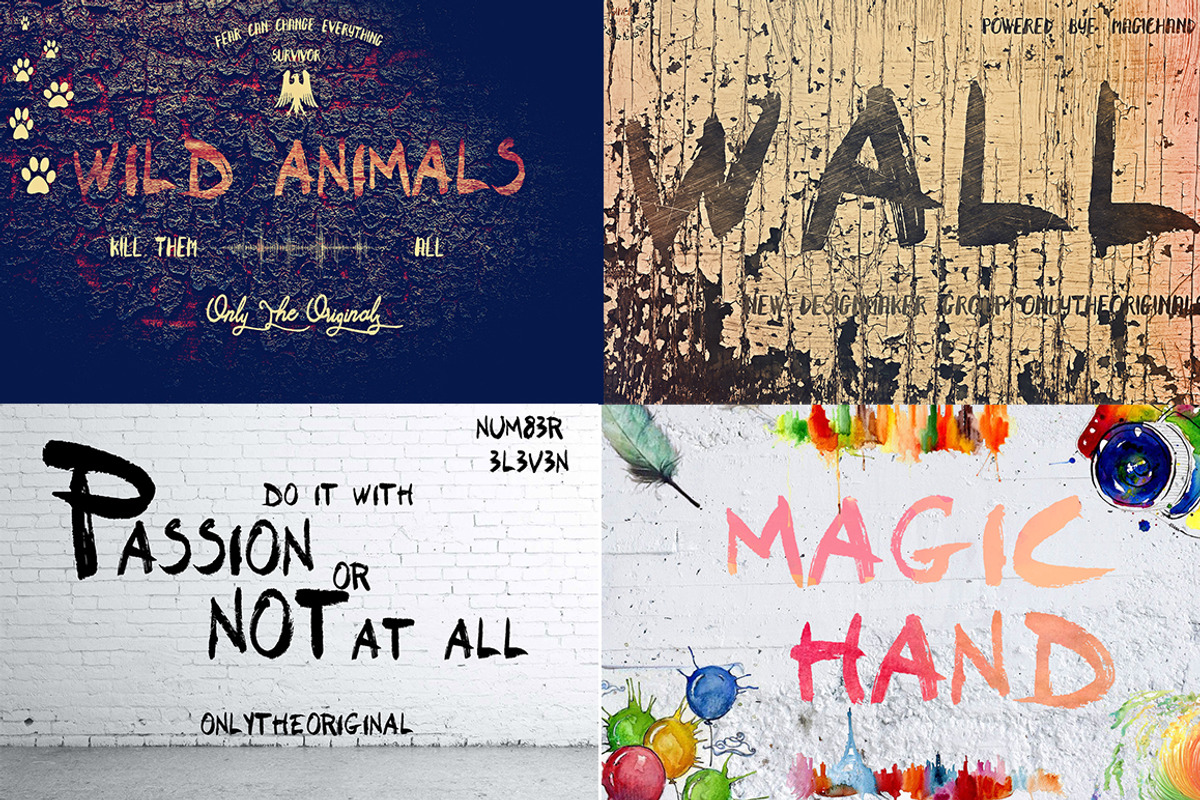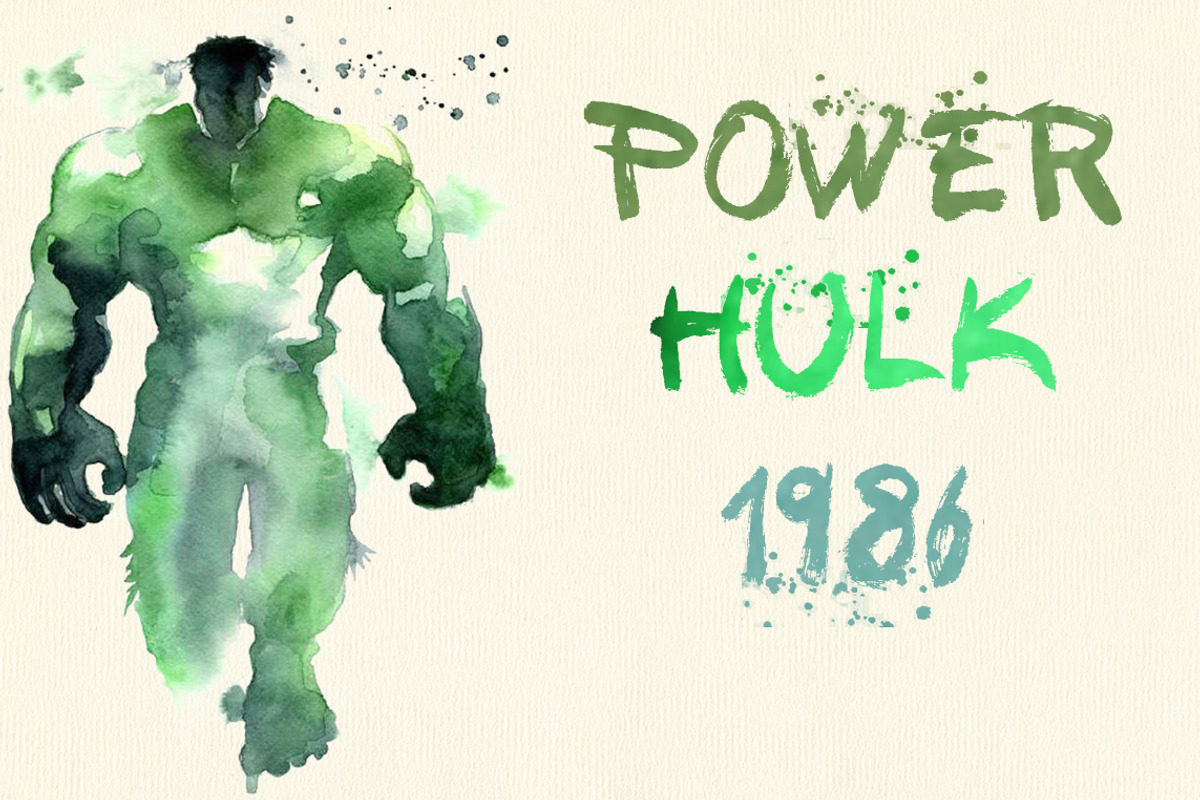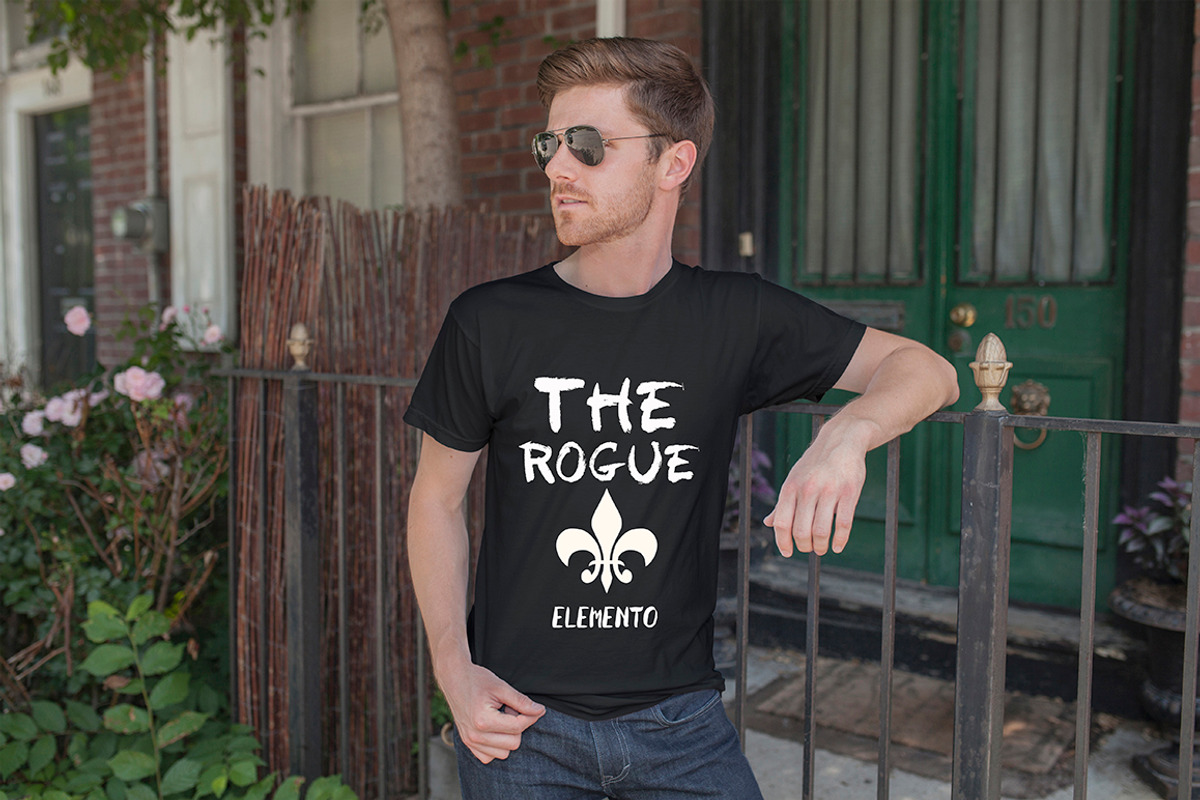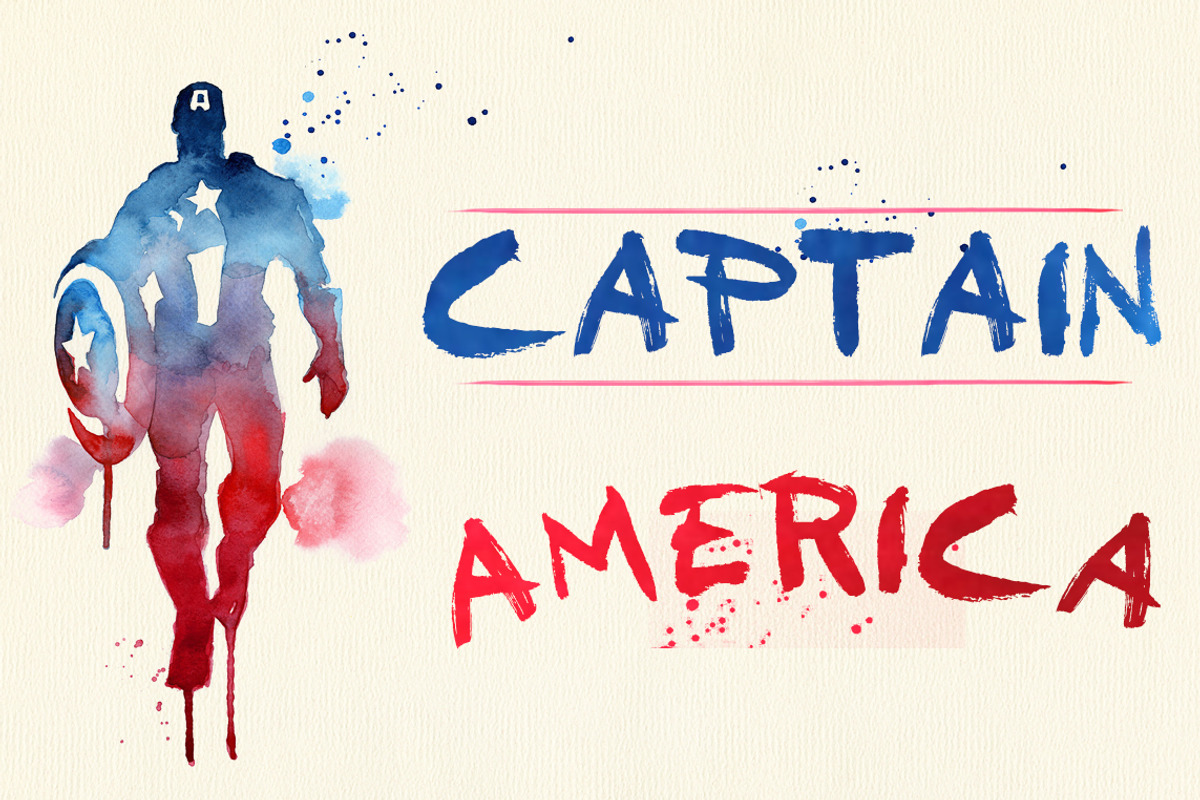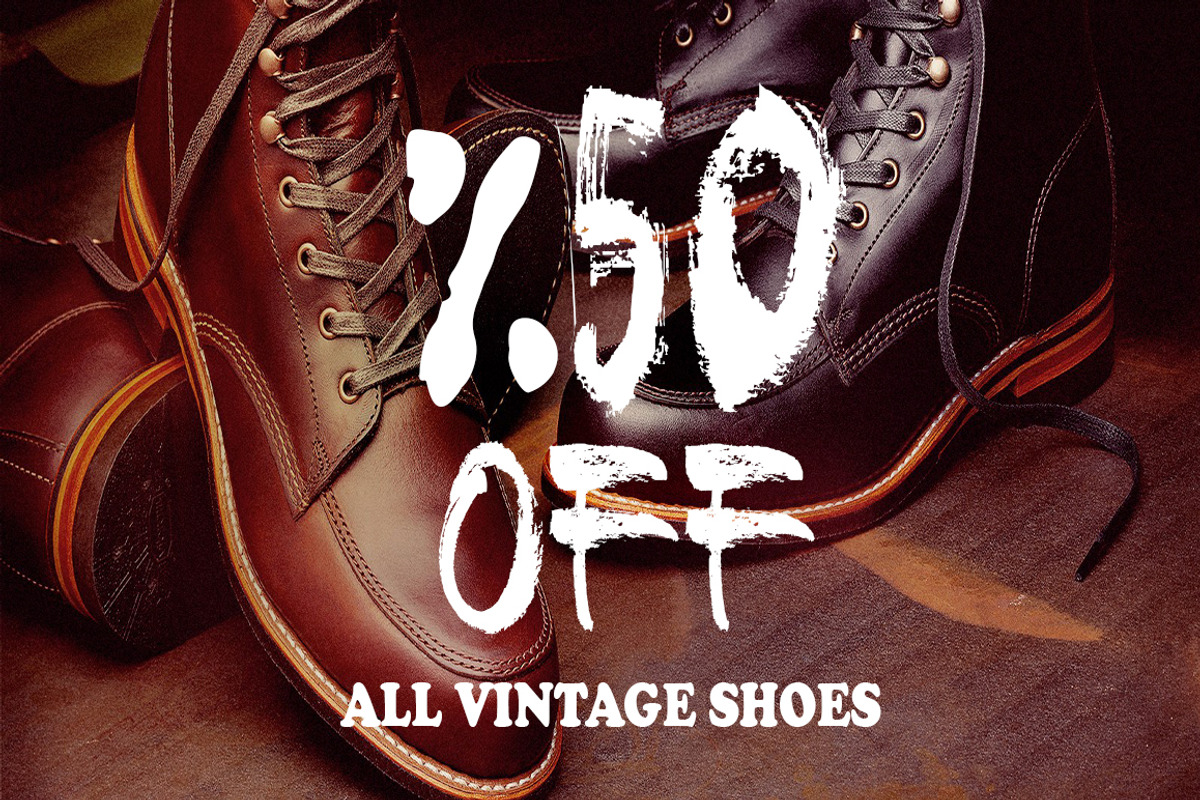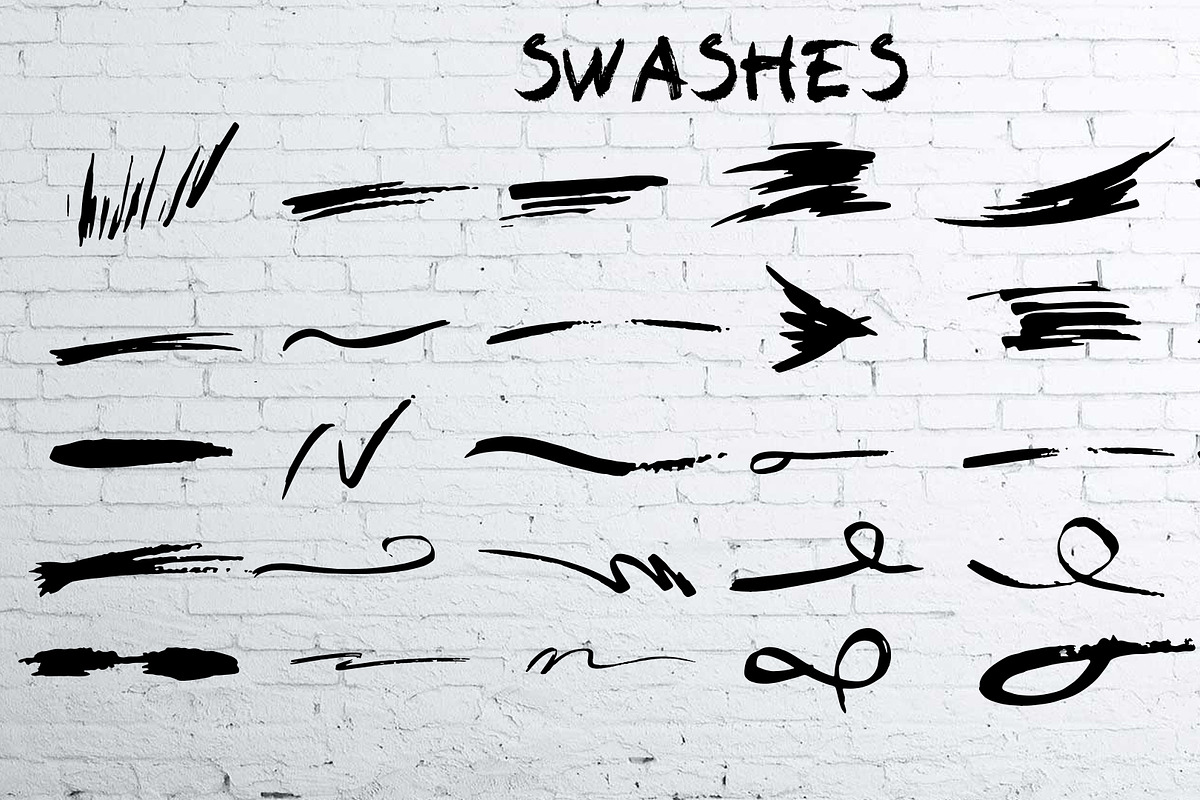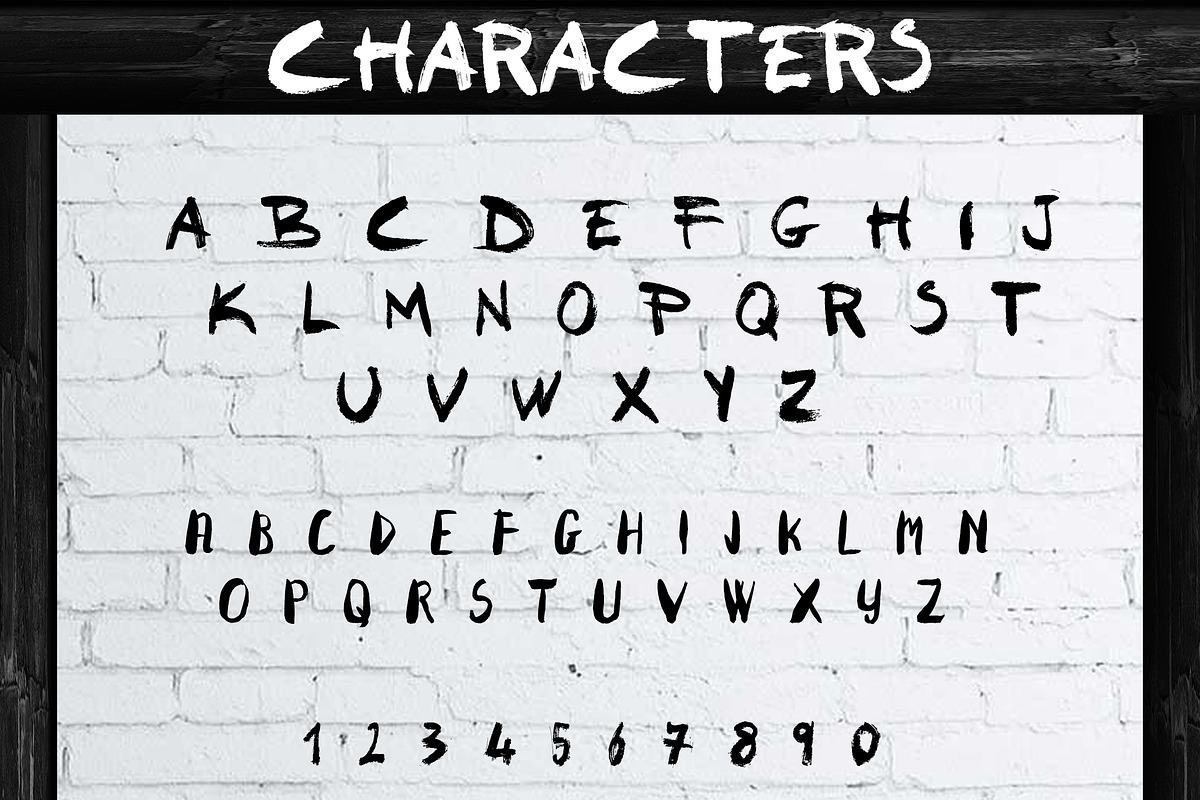
BYPHA 2 FONTS
BYPHA 2 FONTS by JosephaStone is a font selected for branding, posters, packaging, typography.
Why BYPHA 2 FONTS is worth a look
BYPHA 2 FONTS by JosephaStone fits naturally into Branding, posters, packaging, typography.